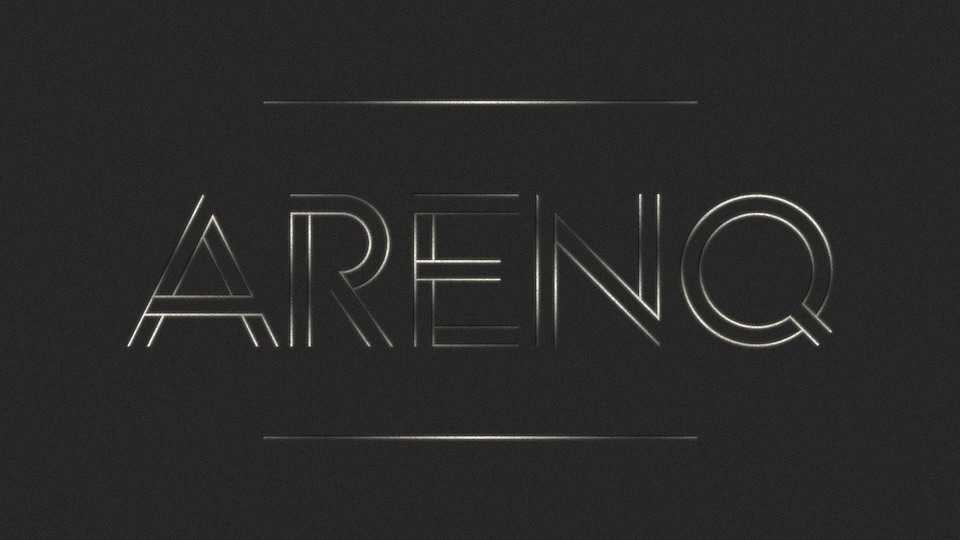
Download Arenq font, an elegant and classy all caps display typeface. Arenq looks great for logos, branding, fashion, media, headlines, posters and more.
Designer: Skomii Paulo